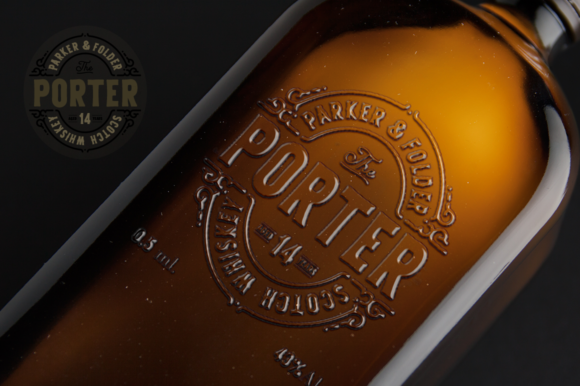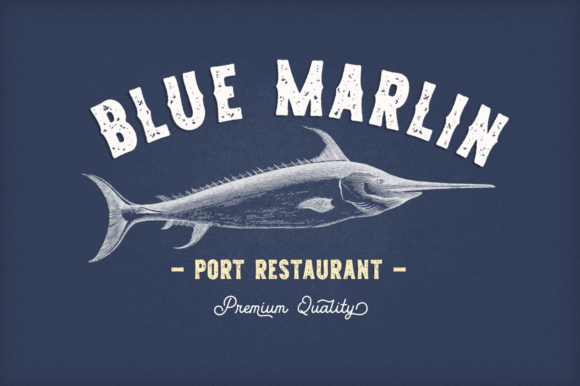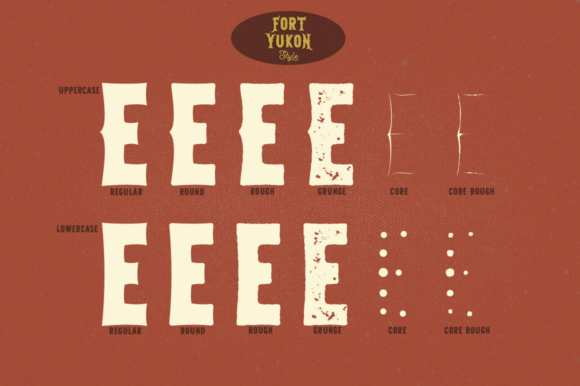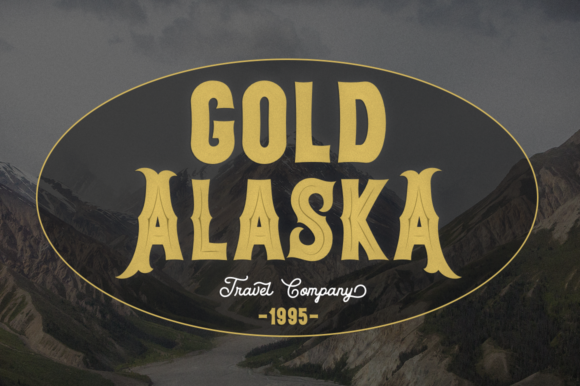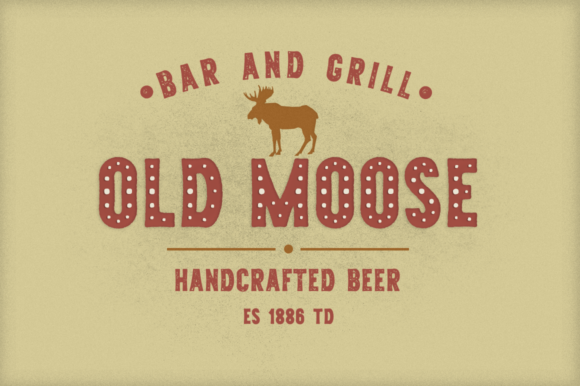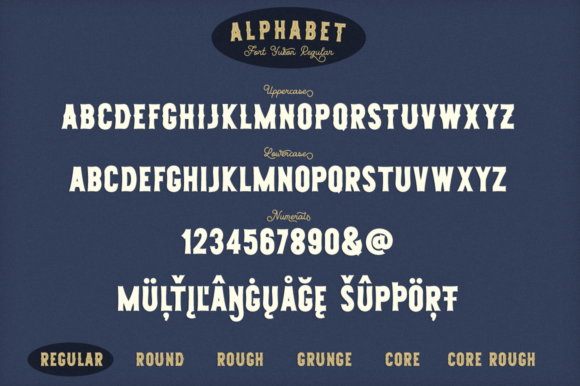
Introducing Fort Yukon Font: The Ultimate Retro Font Family for Designers and Crafters
Are you looking for a font that can add a touch of nostalgia and retro charm to your design projects? Look no further than the Fort Yukon Font, a bold and authentic vintage font family that is sure to inspire. With 14 styles to choose from, this versatile font family is perfect for designers and crafters who want to add a unique and eye-catching element to their work.
What is Fort Yukon Font?
Fort Yukon Font is a carefully crafted font family that is designed to evoke the spirit of the past. With its bold and rugged aesthetic, this font is perfect for designs that require a retro or vintage feel. Whether you’re working on a logo, poster, or packaging design, Fort Yukon Font is sure to make your project stand out.
Key Features of Fort Yukon Font
- 14 Styles: Fort Yukon Font comes with 14 different styles, ranging from regular to bold, italic, and even a few decorative options. This means you can choose the perfect style to match your design needs.
- Bold and Authentic: Fort Yukon Font is designed to be bold and authentic, with a rugged aesthetic that is reminiscent of vintage signs and posters.
- Retro Feel: This font family is perfect for designs that require a retro or vintage feel. Whether you’re working on a historical project or just want to add a touch of nostalgia to your design, Fort Yukon Font is the perfect choice.
- Versatile: Fort Yukon Font is versatile and can be used for a wide range of design projects, from logos and posters to packaging and more.
Why Choose Fort Yukon Font?
There are many font families on the market that claim to offer a retro or vintage aesthetic, but Fort Yukon Font stands out from the crowd. Here are just a few reasons why:
- Unique Aesthetic: Fort Yukon Font has a unique and distinctive aesthetic that is sure to make your designs stand out.
- High-Quality: This font family is carefully crafted to ensure that it is of the highest quality, with crisp and clear lines that will look great in any design.
Design Ideas Using Fort Yukon Font
Fort Yukon Font is a versatile font family that can be used for a wide range of design projects. Here are just a few ideas to get you started:
- Retro Posters: Use Fort Yukon Font to create eye-catching retro-style posters for movies, events, or products.
- Vintage Logos: Create bold and authentic vintage-style logos for businesses or organizations.
- Packaging Design: Use Fort Yukon Font to add a touch of nostalgia to packaging design for food, drink, or other products.
- Signage: Create eye-catching signs using Fort Yukon Font, perfect for businesses, events, or exhibitions.
In conclusion, Fort Yukon Font is a bold and authentic vintage font family that is perfect for designers and crafters who want to add a touch of nostalgia to their design projects. With 14 styles to choose from, this versatile font family is sure to inspire. Whether you’re working on a logo, poster, or packaging design, Fort Yukon Font is the perfect choice.